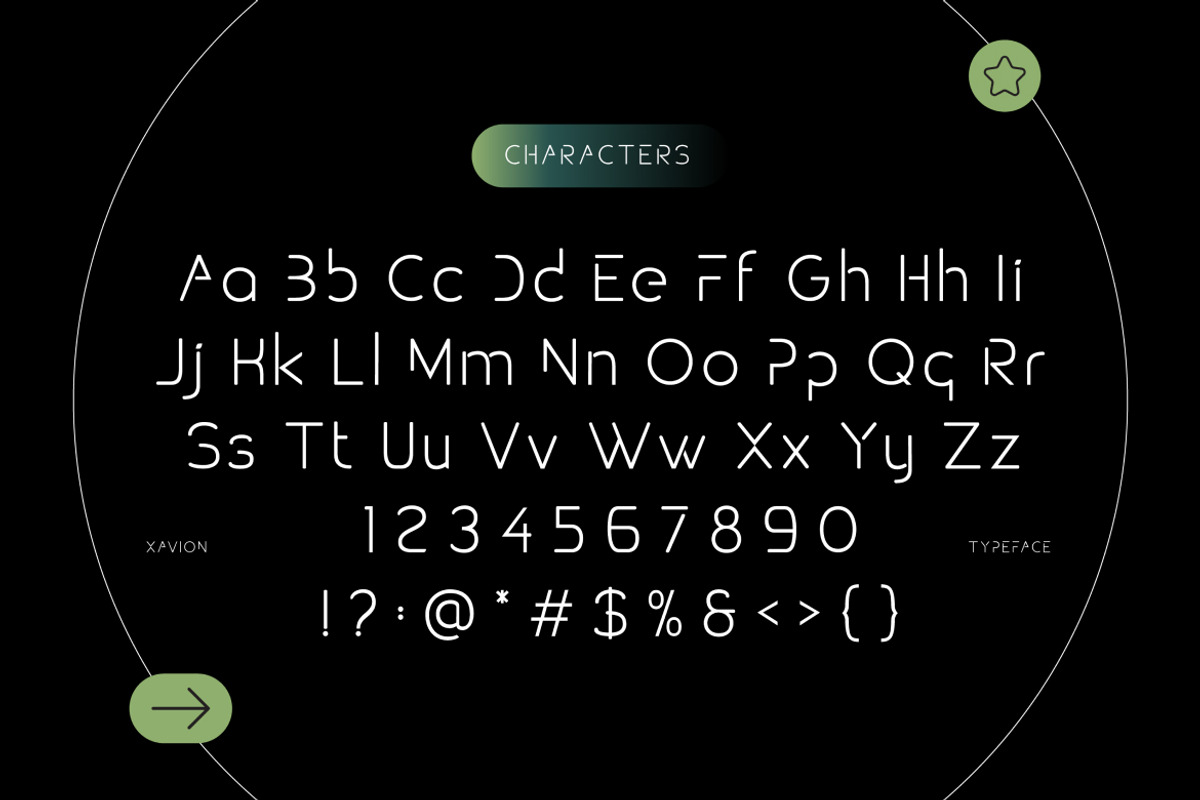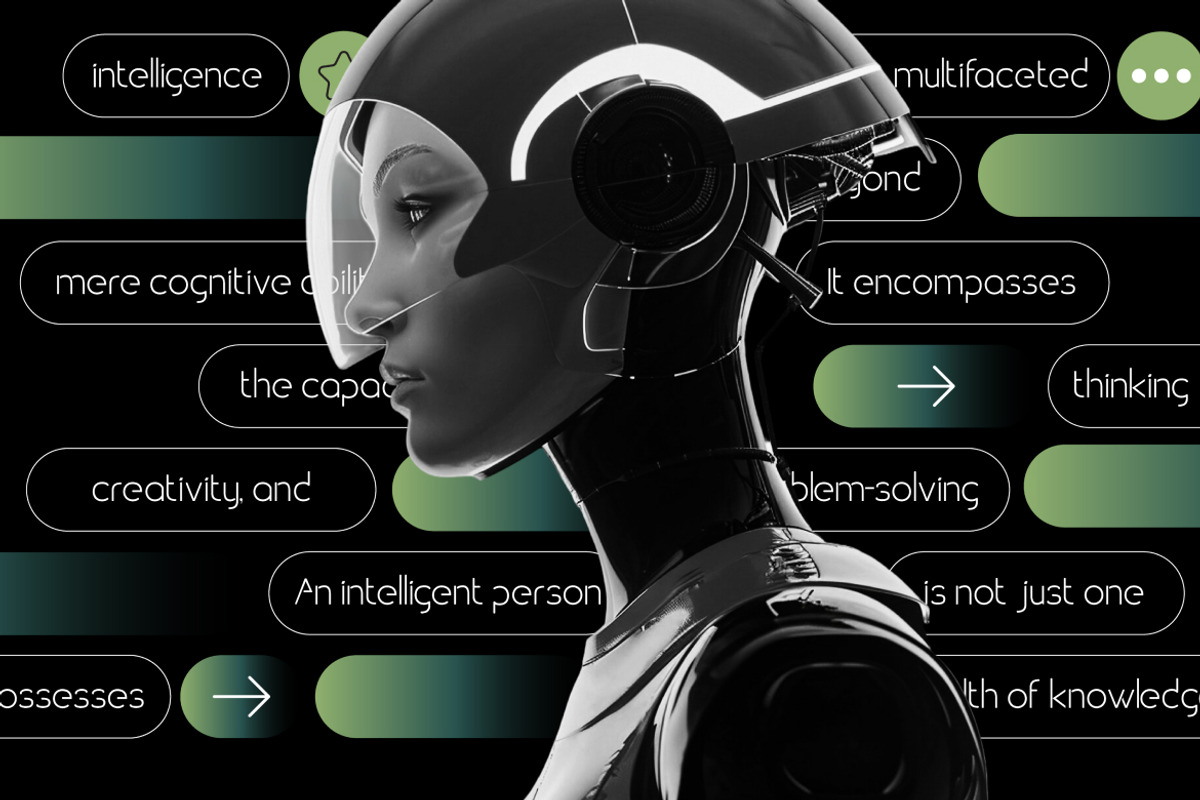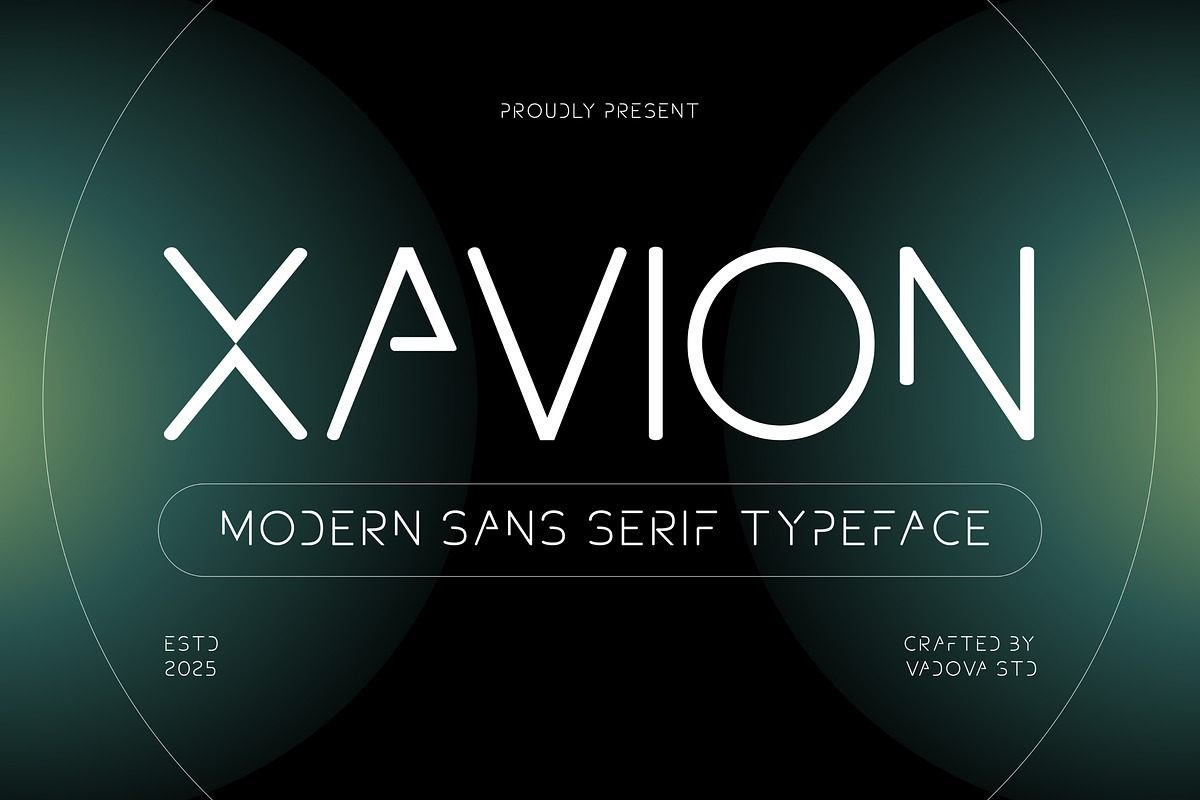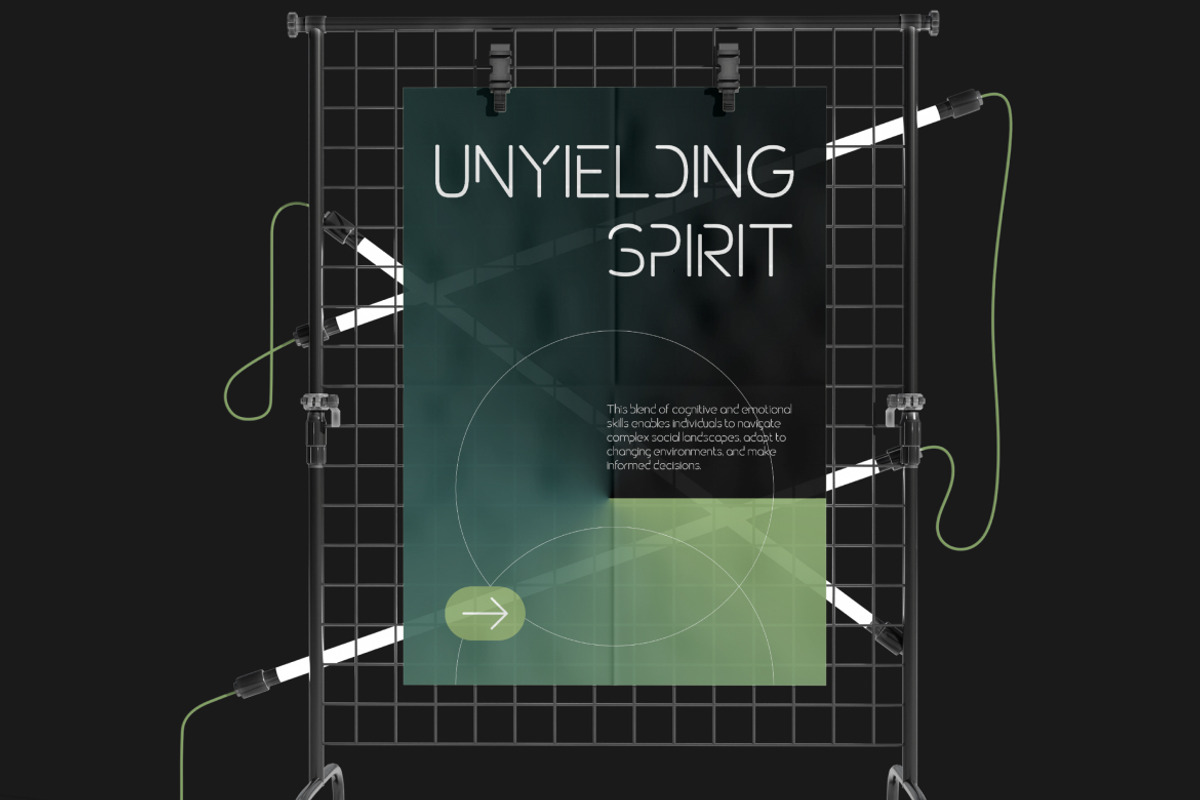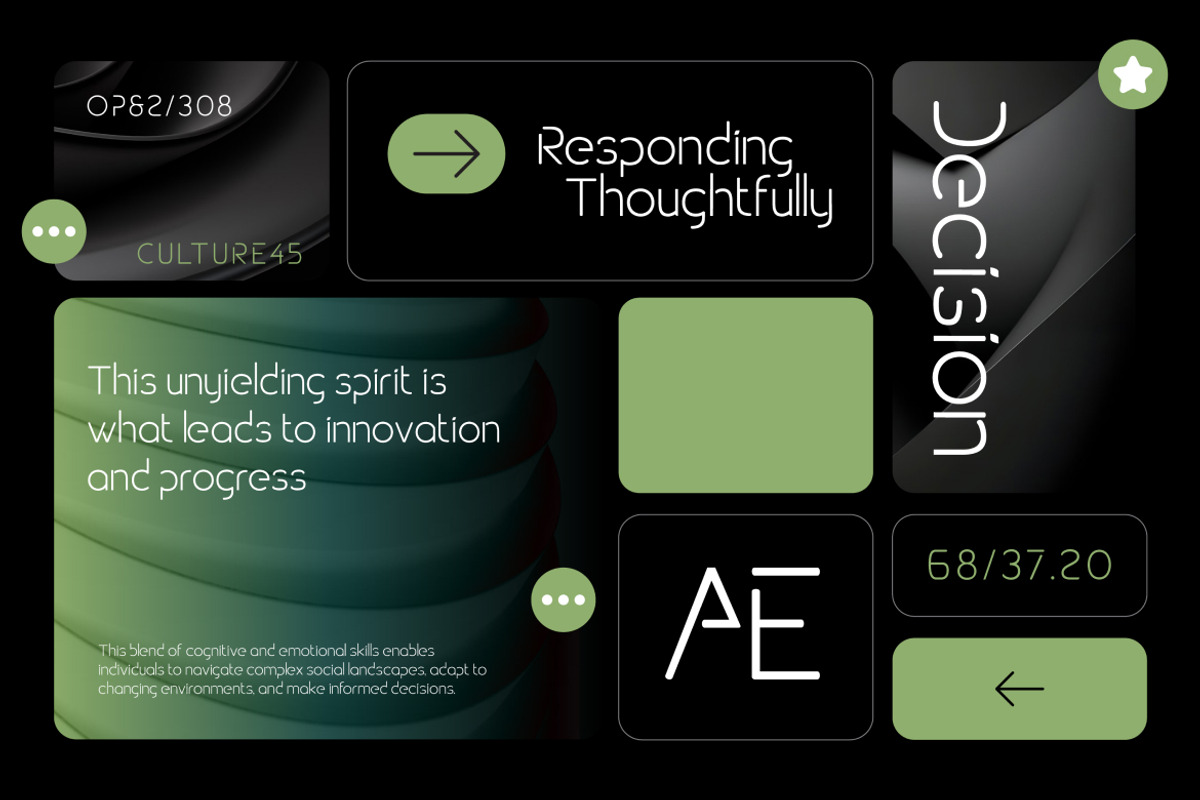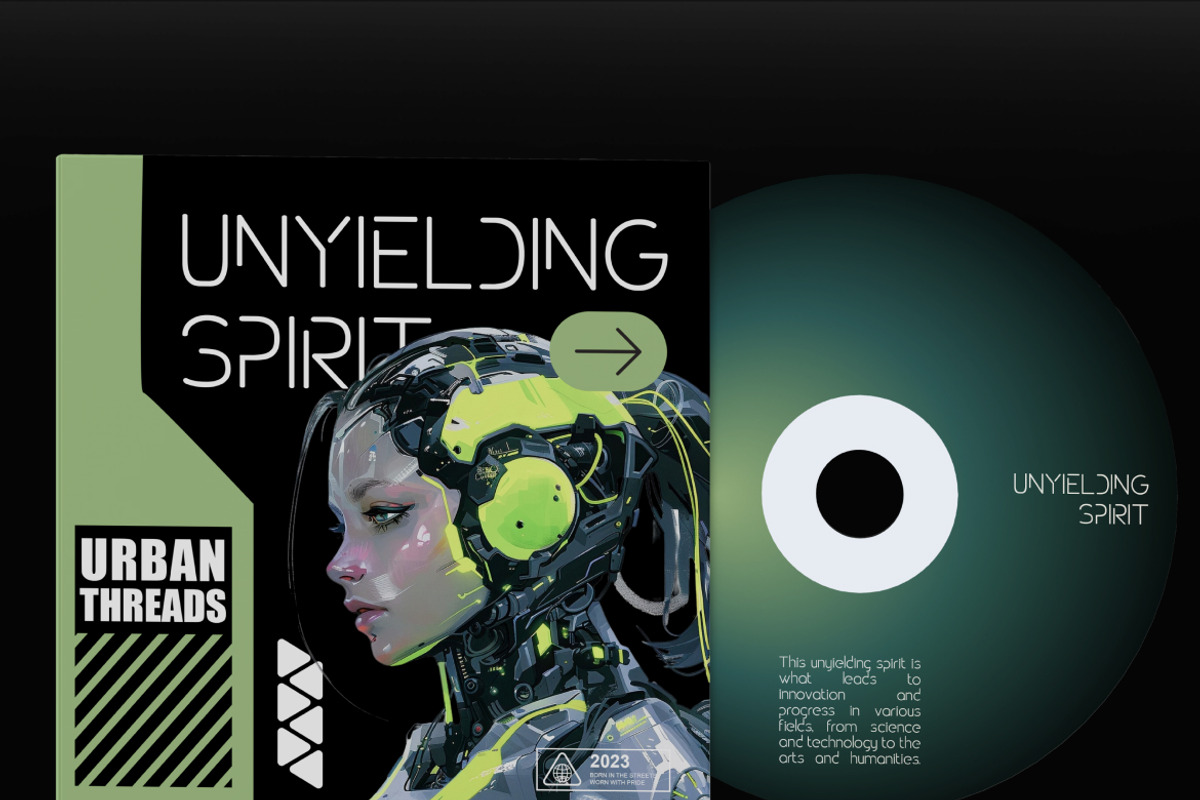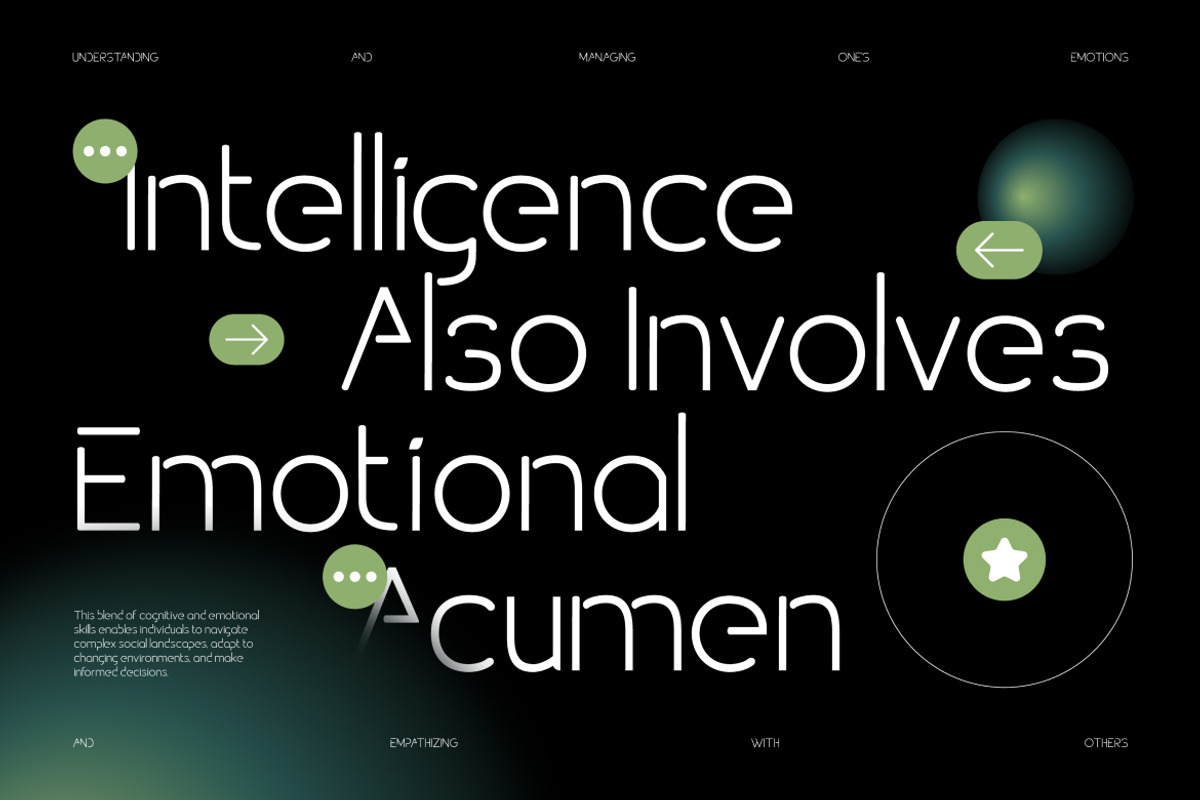
Xavion Modern Futuristic Sans Serif
Xavion is a modern futuristic sans serif typeface that embodies the spirit of innovation and intelligence. Built with geometric precision and minimalist design, Xavion combines sleek curves with smart angular cuts to create a forward-thinking visual identity. Perfect for designers exploring the intersection of technology, creativity, and modernism, this typeface reflects a refined digital aesthetic.
Inspired by artificial intelligence, robotics, and data-driven design, Xavion merges human creativity with machine precision. Each character is crafted to deliver clarity and motion — smooth enough for readability yet bold enough for futuristic branding. Whether used in UI/UX design, sci-fi visuals, or startup branding, Xavion brings a sleek and intelligent presence to every project.
With its clean modular structure and balanced proportions, Xavion is both contemporary and timeless — ideal for those who design at the edge of innovation and artistry.
- Futuristic sans serif style with geometric precision and minimalist construction
- Distinctive letterforms inspired by AI, robotics, and smart interfaces
- Display typeface built for digital branding, UI, and modern editorial layouts
- Clean curvature and sharp edges for sleek, professional presentation
- Includes uppercase, lowercase, numerals and punctuation
- Optimized for on-screen and print clarity
- Ideal for tech startups, app design, and futuristic visual projects
- Smooth readability for headlines, posters, or logo identities
- Compatible with both light and dark backgrounds
Relevance and Use Cases is perfect for AI branding, digital product design, sci-fi movie titles, startup identity, tech interfaces, modern websites, innovation campaigns, presentation decks, and futuristic poster layouts.